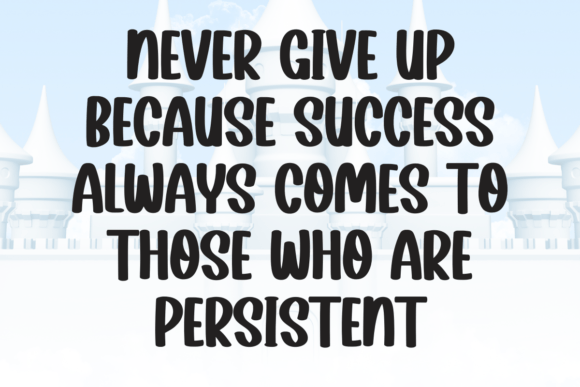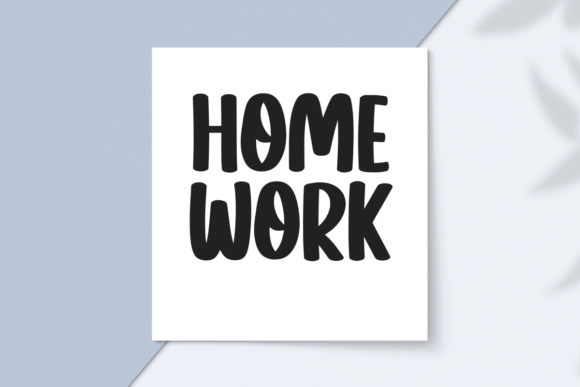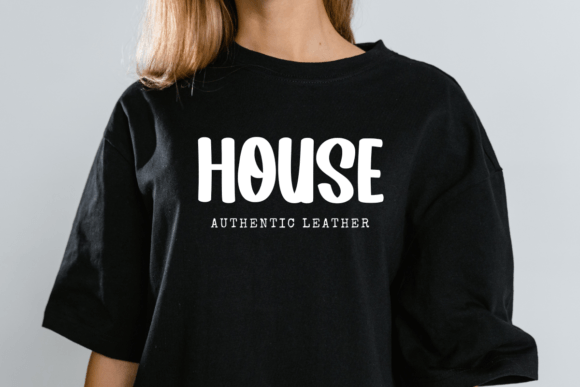
Disney Rainbow Font: A Playful Display Font for Cute Cricut Crafts
About the Disney Rainbow Font
Unleash your creativity with Disney Rainbow Font, a versatile font perfect for a wide range of applications. Disney Rainbow is a bold and fun Display font. Its wide and bold characters make this font ideal for attention-grabbing designs. You can use it for headlines, t-shirt typography, banners, product labels, and much more.
Disney Rainbow’s playful boldness makes it perfect for children’s products, bright and cheerful branding, and eye-catching posters. It excels in applications needing immediate visual impact, such as headlines, logos, and short, memorable taglines. However, its wide letterforms and high x-height make it less suitable for body text or UI elements where readability is paramount.
Pairing it with a clean sans-serif like Open Sans for body copy would create a strong visual contrast and balance the playful energy. Alternatively, a more delicate script font could add a touch of whimsy, while a geometric sans-serif would provide a modern counterpoint.
The font’s core personality is undeniably joyful and energetic, lending itself well to brands targeting a young or family-oriented demographic. Consider its use in projects needing a vibrant and memorable visual identity.